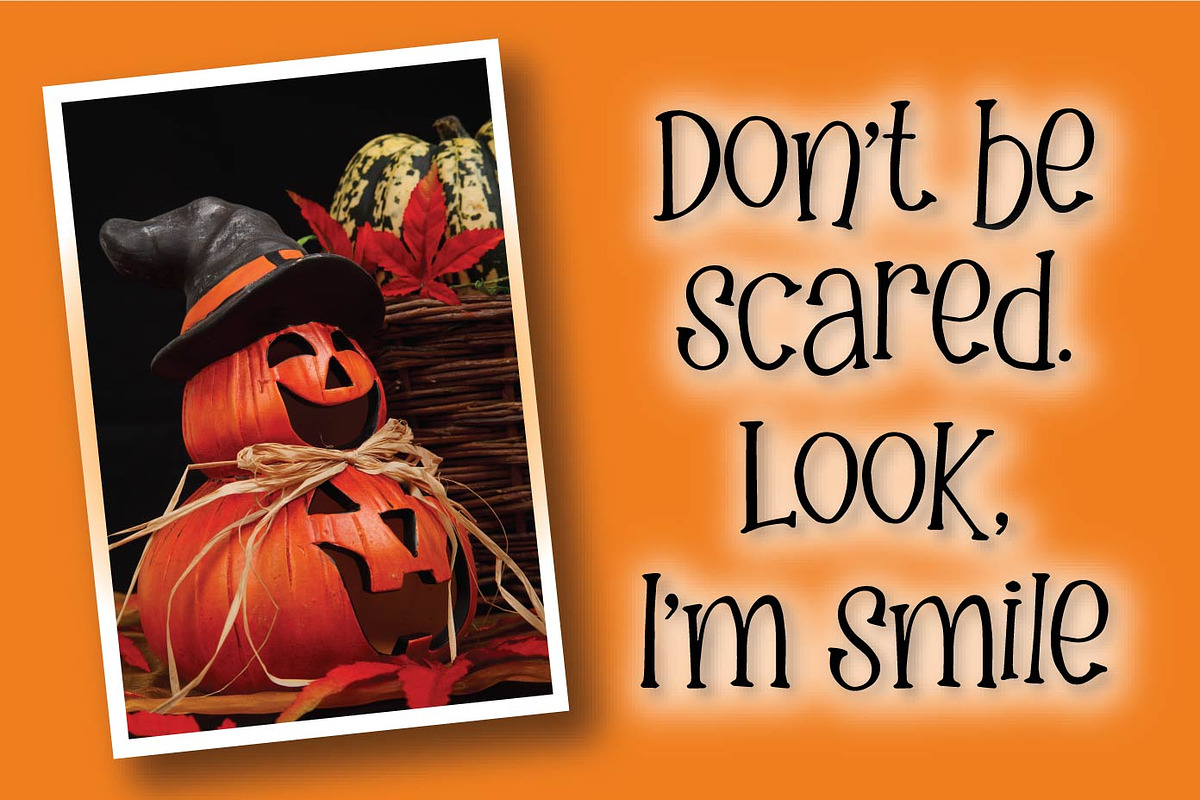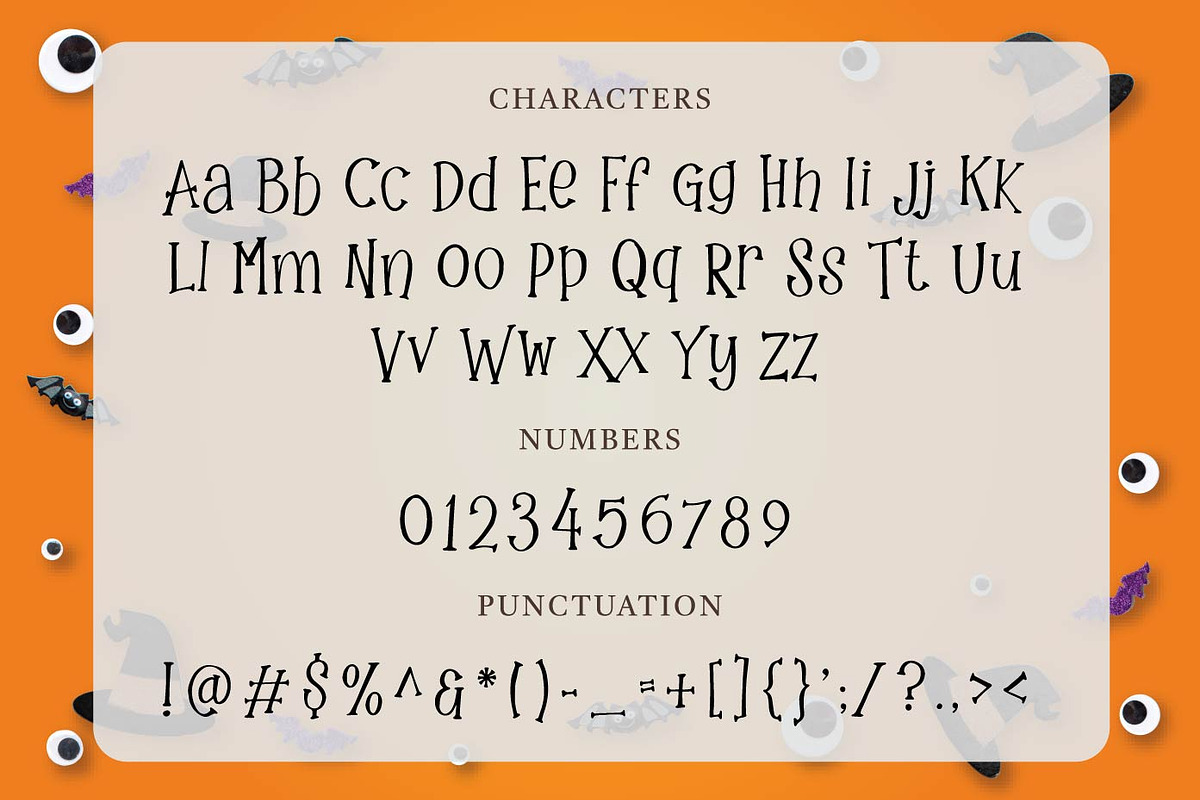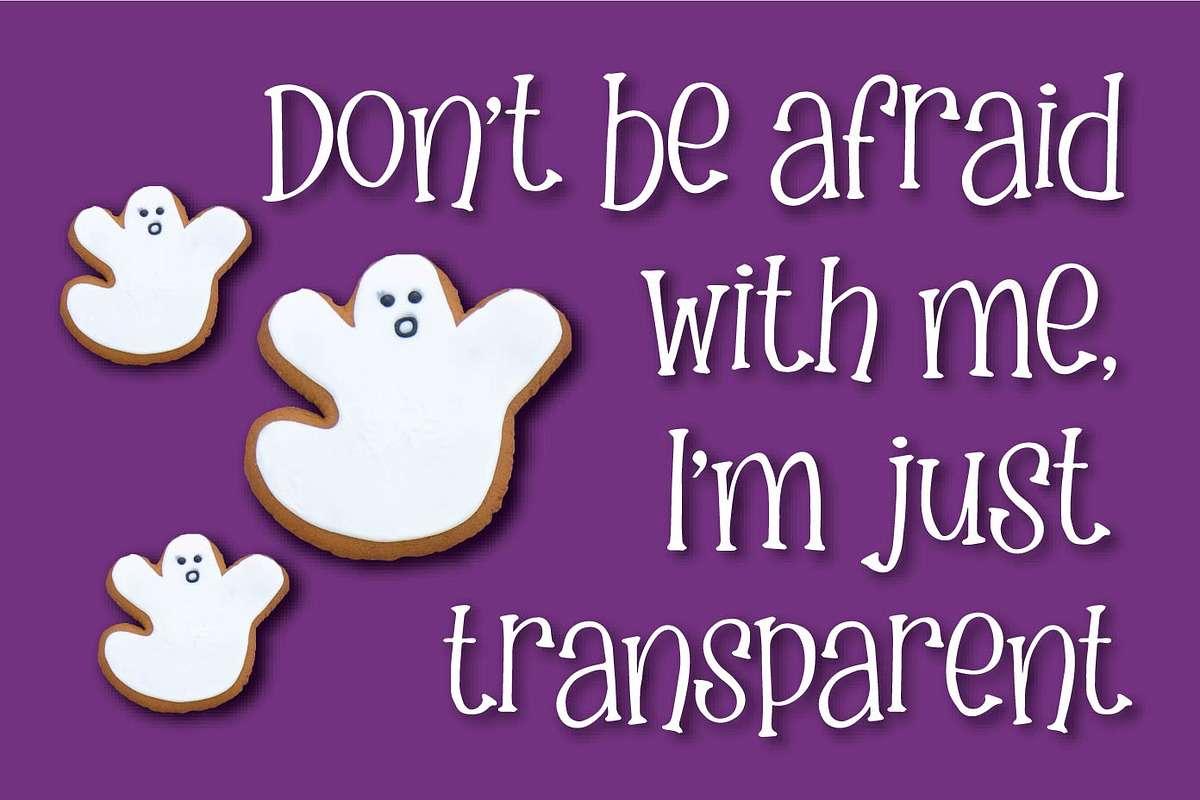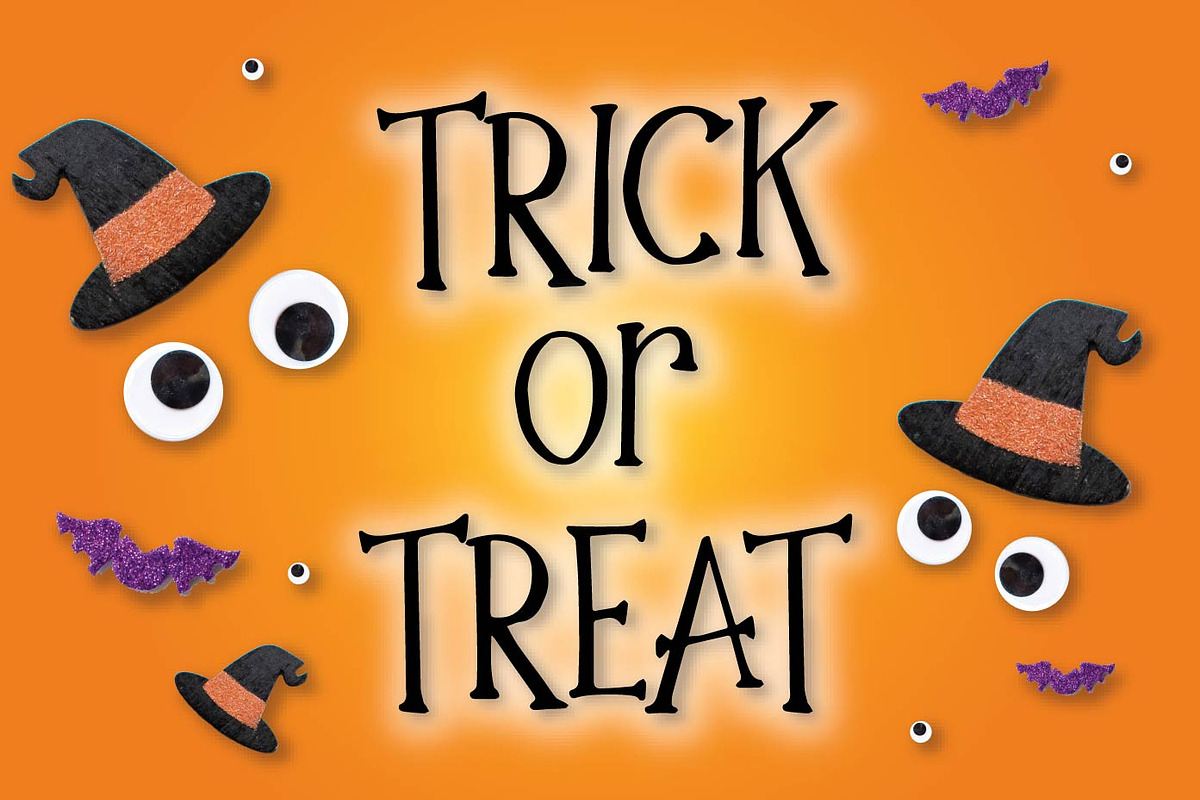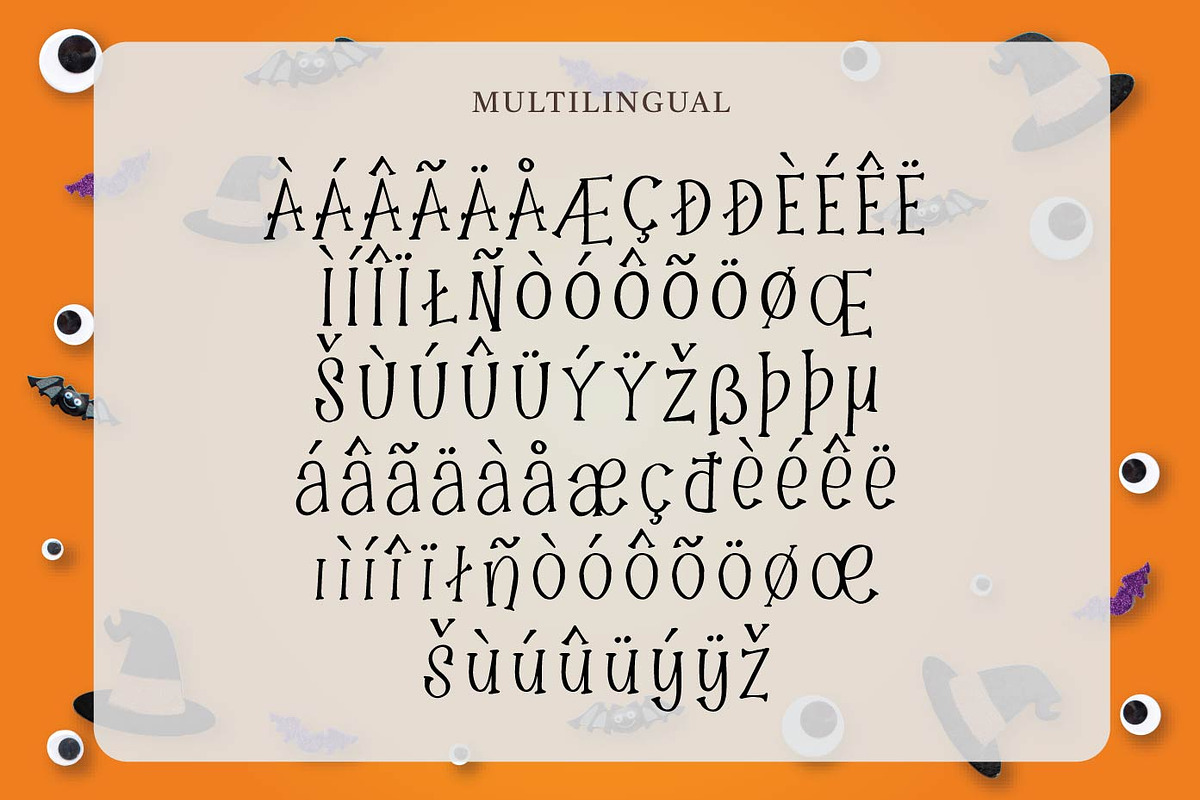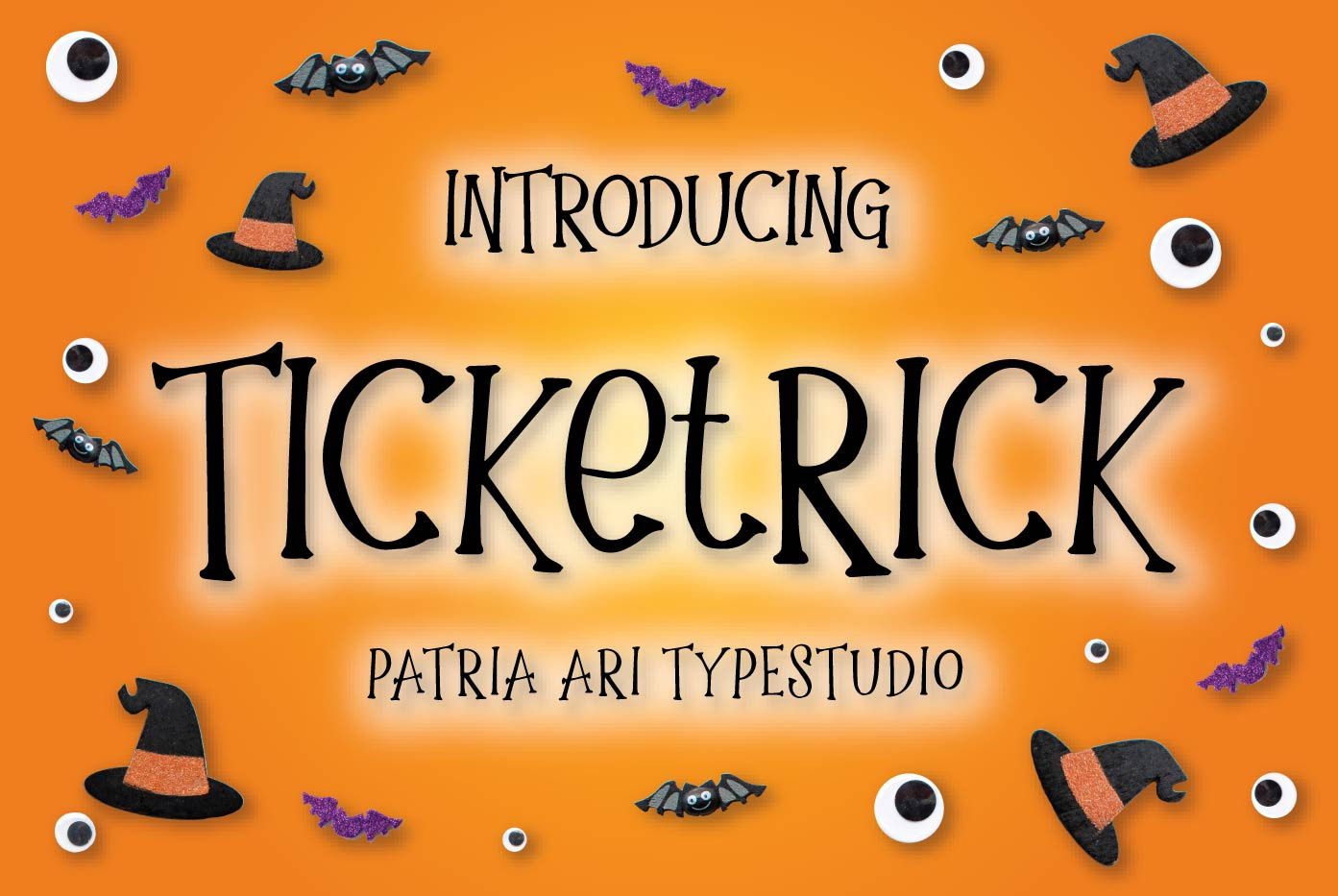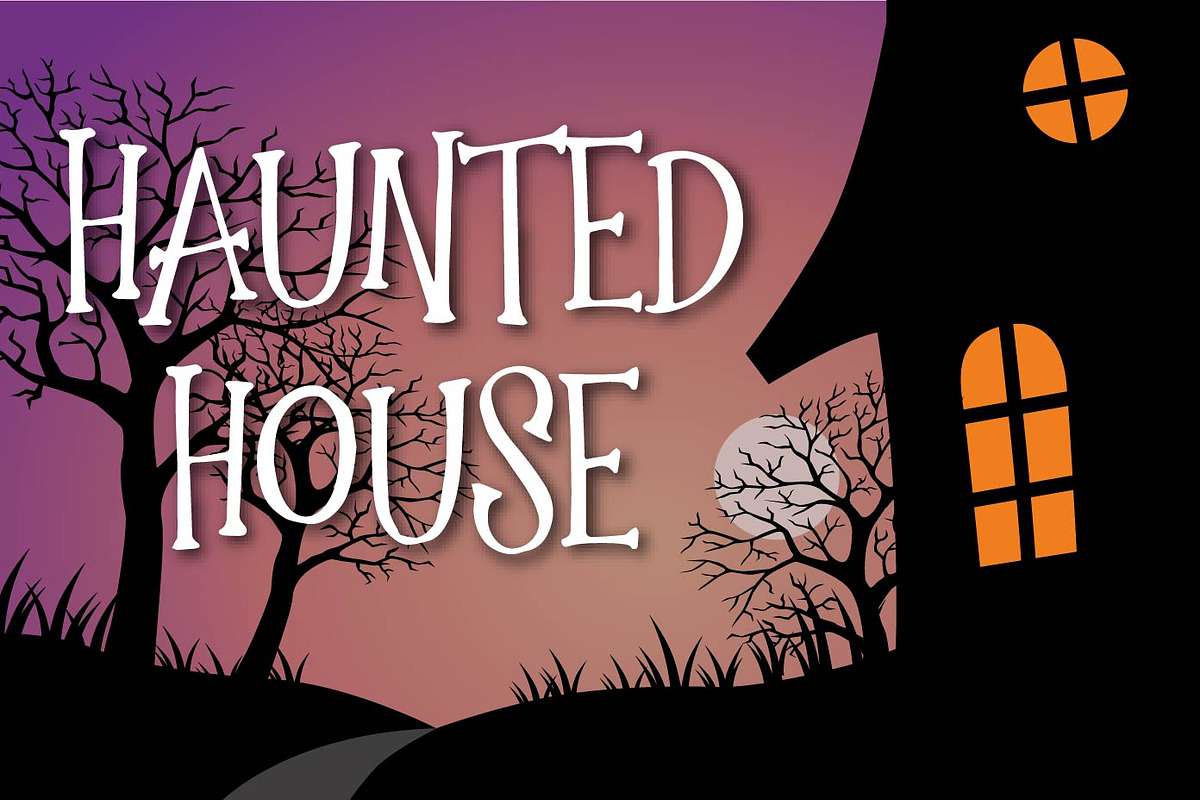
Ticketrick - Halloween Fonts
Ticketrick is a slab display typeface inspired from the halloween celebration.
Ticketrick is perfect for branding projects, logo, social media posts, advertisements, product packaging, product designs, label, and any projects that you work on.
Uppercase Lowercase Numbers Punctuation & symbols Multilingual